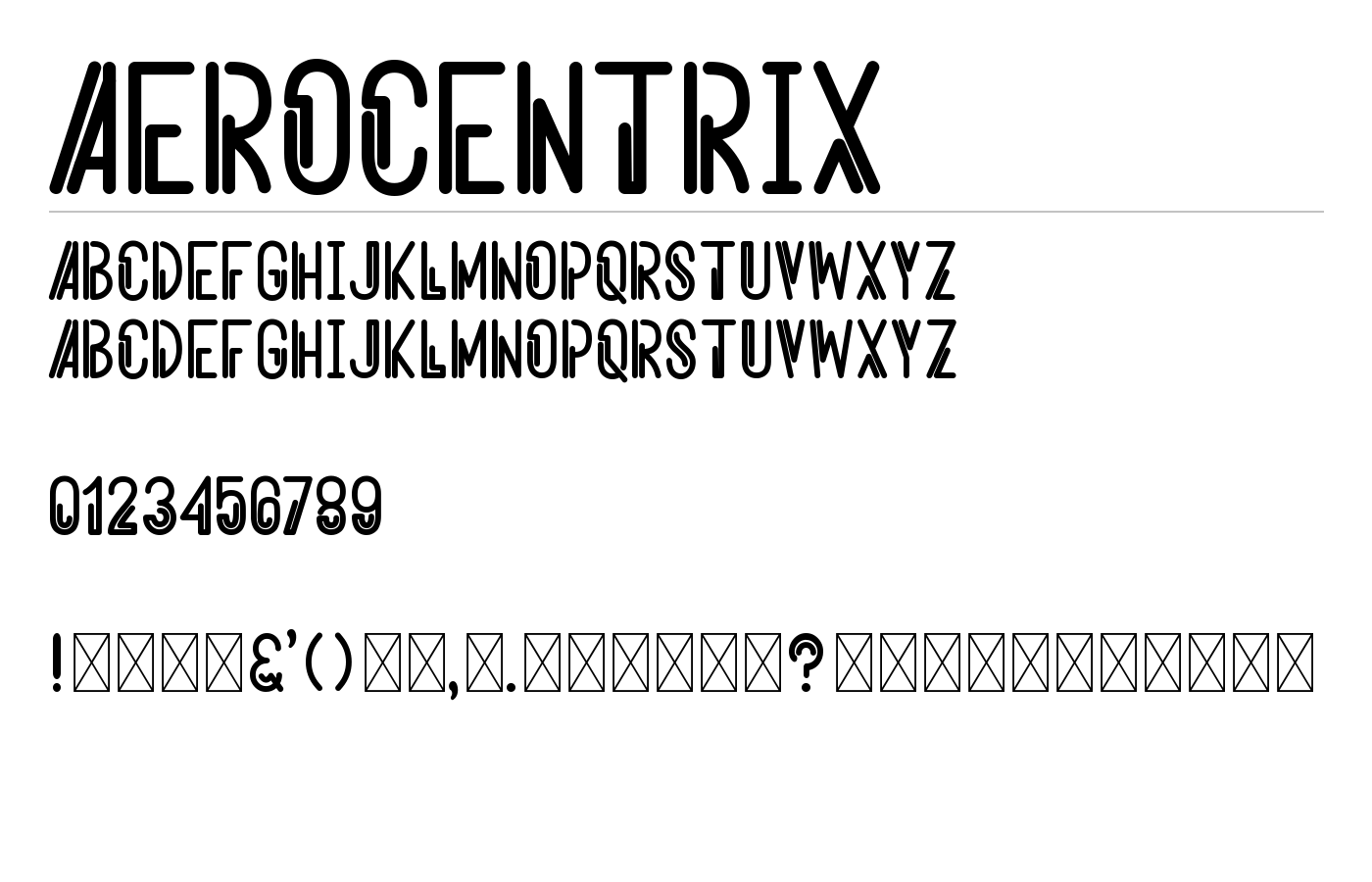
Aerocentrix is a futuristic, condensed sans serif font featuring a unique geometric design with rounded corners and parallel line accents that create a layered effect. Its tall, narrow letterforms and modern style evoke a high-tech, dynamic feel, making it perfect for branding, logos, and headlines that aim to convey innovation and forward-thinking energy. This font stands out in digital and creative contexts where a sleek, modern aesthetic is desired.
Aerocentrix Font